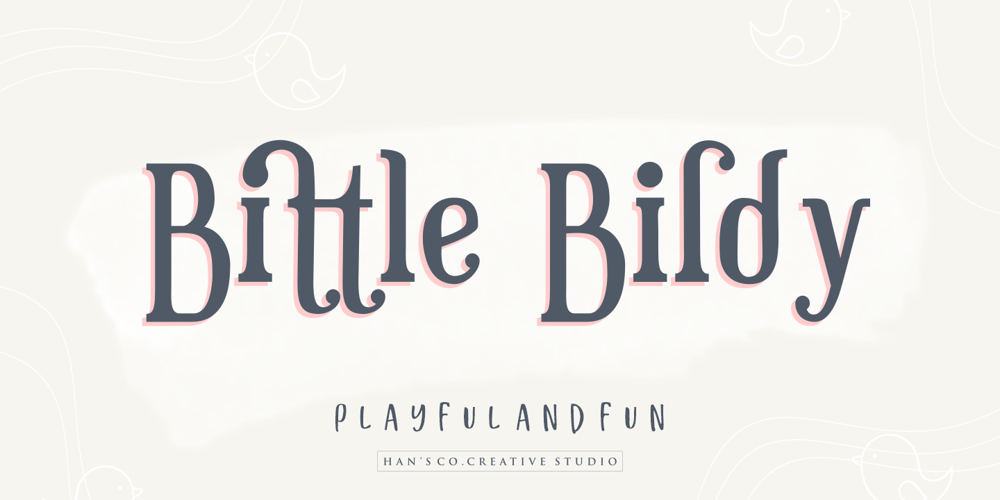
Bittle Birdy Font Family was designed by Burhan Afif and published by HansCo. Bittle Birdy contains 1 styles and family package options. Whimsical, charming and undeniably cute: Bittle Birdy is, as the name suggests, the perfect font for making any kid’s or baby-themed project stand out! This font is perfect for elegant logo design, packaging or invitation cards. Enjoy!